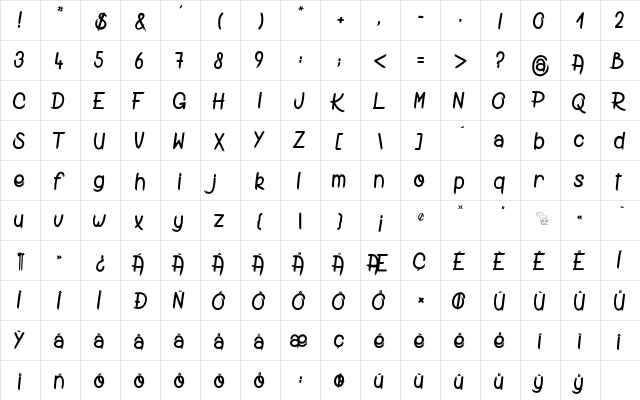
Digging The Grave Regular
Design Context for Digging The Grave Typeface
Digging The Grave is a composed and adaptable typeface that performs quietly and consistently across a wide range of design contexts.